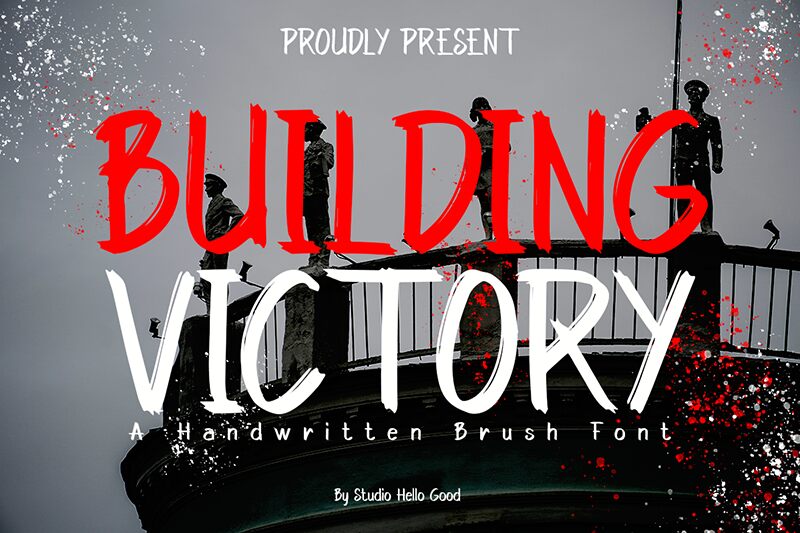
Building Victory font is a free brush typeface by Studio Hello Good. The main elements of this font are the numerous slashes present in the drawing of the characters giving it a weathered effect. Another notable feature is the dynamic and energetic feel the characters present as a whole. With both uppercase and lowercase alphabets, Building Victory has everything needed to form creative headlines.
Create eye-catching projects with a modern aesthetic including logos, signage, posters, or packaging. You can also use a complementary font when the primary font is the focus of the project and should be emphasized. Use in web design and promotional content for social media or advertisements.